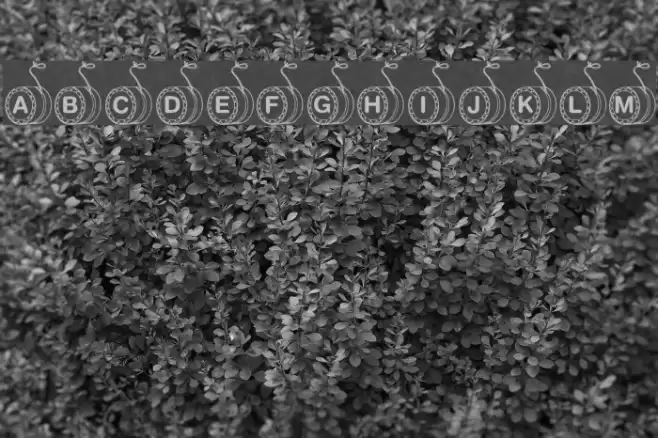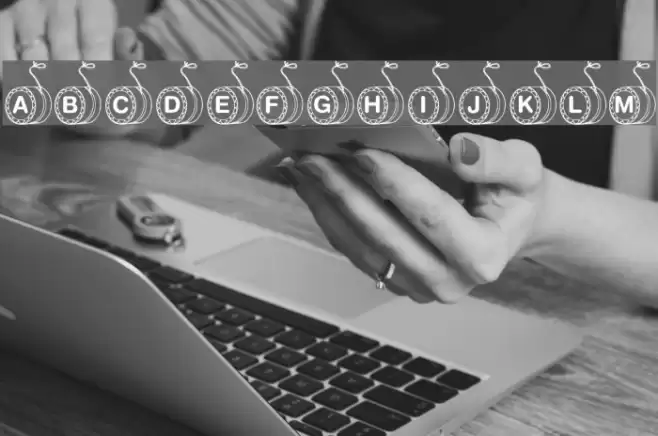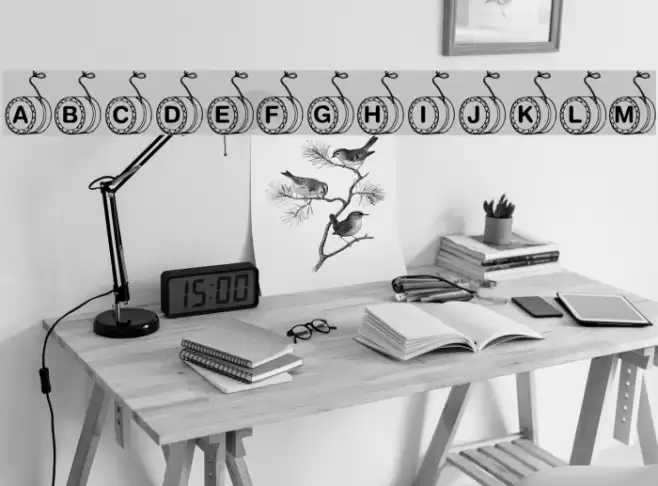
KR YoYo Font
KR YoYo Description
This playful and decorative font features uppercase letters encapsulated within yo-yo designs, creating a whimsical and unique appearance. Each letter is surrounded by a circular yo-yo with a string, adding a sense of motion and fun. The font is highly stylized, making it ideal for creative and informal projects. The design is consistent across all uppercase letters, maintaining a cohesive look. The yo-yo theme is prominent, making it a standout choice for projects that aim to capture attention with a playful twist.
A playful, decorative font with letters inside yo-yo designs from Images & Symbols fonts.
- Proposed Projects: Ideal for children's books, playful branding, toy packaging, and event invitations.